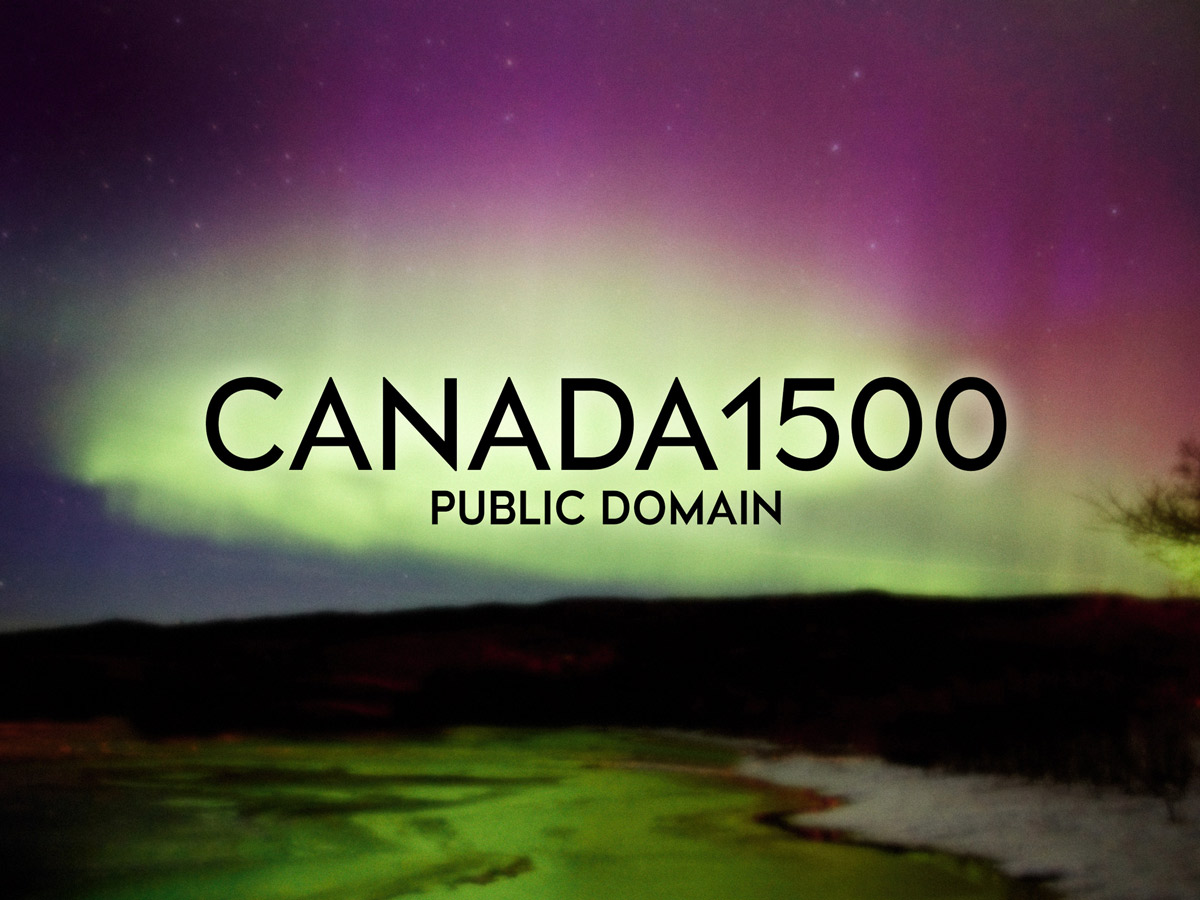
Some early Typodermic fonts range from polished to experimental to occasionally questionable. Many were eventually discontinued or removed from the main catalog and have now been released under the official CC0 1.0 Universal public-domain dedication, with no rights reserved.
1980 Portable is a public-domain typeface by Ray Larabie. The design was a condensed sans-serif with letterforms tilted at varying angles, meant to echo the visual language of the late 1970s and early 1980s. The checkerboard imagery associated with the ska band The Specials was a major influence, though the letterforms themselves came more from the narrow grotesques he had seen on 1960s lounge and jazz album covers.
Designed by Ray Larabie, 256 Bytes has been released into the public domain. The design came directly from the logo of the MITS Altair 8800, one of the first personal computers, introduced in 1975. The logo itself only provided a few letters, so most of the typeface was extrapolated from those forms.
The public-domain 6809 Chargen typeface was designed by Ray Larabie. It was a tribute to the dot matrix fonts that shaped early computing and video game aesthetics. He wasn’t copying any one source; it was a general homage to the bitmap lettering that defined that era.
Ray Larabie designed Adriator, now available as a public-domain typeface. The result was a striped display typeface with bold thick-and-thin contrasts. Looking back, it reminds him of decorative details from The Price is Right set design or old drive-in theatre snack bars.
This public-domain typeface, Airmole, was created by Ray Larabie. The name came from the kind of psychedelic juxtapositions he liked in band names such as Led Zeppelin or Soft Machine. Since moles live underground, calling one “Airmole” felt memorable and a little absurd.
Almonte, a design by Ray Larabie, is in the public domain. It was a quick, top-of-the-dome attempt at a wooden sans look, created entirely digitally without reference to actual wood type. He just imagined how it should look and built it from scratch with digital tools.
Created by Ray Larabie, Angerpoise Lampshade is a public-domain typeface. At first, he called it “Anglepoise Lampshade,” after a song by the punk band The Soft Boys. He didn’t realize Anglepoise was also a lamp brand.
Anklepants is among the public-domain typefaces designed by Ray Larabie. The design was inspired by the display typeface used by CBS radio stations owned by Westinghouse. In 1963, Westinghouse Broadcasting rebranded as “Group W,” and part of that identity was a distinctive set of call letters and logos that stayed in use until 1995.
The design of Arnprior is by Ray Larabie and is now in the public domain. The name comes from Arnprior, a town in the Ottawa Valley near where he grew up. He didn’t actually live in the town itself — he was out in the woods — but Arnprior was the nearest big place, so the name stuck.
Asterisp is a public-domain typeface by Ray Larabie. The whole idea was to focus on the asterisk, a glyph that usually gets treated as an afterthought. He wanted to give designers more options — a toolkit of asterisks in different styles so they could get more specific about the symbol instead of being stuck with whatever came bundled in their fonts.
Designed by Ray Larabie, Astron Boy has been released into the public domain. The design was inspired by the logo for Astron Belt, a vintage laserdisc video game that, for a brief moment, felt like it was pushing the limits of arcade technology. The game itself used ITC Serif Gothic for its title, but the marquee logo was custom.
The public-domain Athabasca typeface was designed by Ray Larabie. The name came from the Athabasca region in northern Canada; he wanted something that evoked ice and glaciers. His idea was to merge angular modernism with the utilitarian look of old railroad lettering, the kind where octagonal shapes were used more for ease of reproduction than for style.
Ray Larabie designed Baby Jeepers, now available as a public-domain typeface. The idea was to take the logic of a seven-segment LCD display and push it far beyond its usual simplicity. Instead of the minimal, utilitarian forms you see on digital clocks, he built an elaborate version with highly detailed, interlocking segments.
This public-domain typeface, Bailey's Car, was created by Ray Larabie. The name came directly from an incident he witnessed in Mississauga: the burning wreck of sprinter Donovan Bailey’s Mercedes. He went home and turned the event into a quick novelty font.
Baltar, a design by Ray Larabie, is in the public domain. The name was a nod to the Battlestar Galactica character, chosen at a time when the newer series had not yet aired and the reference still carried the feel of a dated, mediocre show. He wanted the typeface to be deliberately heavy and crude, something that ignored refinement in favor of blunt impact.
Created by Ray Larabie, Barbatrick is a public-domain typeface. The name came from the cartoon Barbapapa, though the typeface itself has nothing in common with that imagery. The design was essentially a derivative of Hemi Head with speed lines added.
Baveuse is among the public-domain typefaces designed by Ray Larabie. The name came from the French word for a drooling woman, chosen simply because he liked the sound of it. The design itself was a comic-style typeface, informal and bouncy, aimed at capturing the lighthearted tone common in playful display lettering.
The design of Beat my Guest is by Ray Larabie and is now in the public domain. The name came from the Adam and the Ants song of the same title, which matched the violent, chaotic tone he wanted. Unlike many of his digital experiments of the time, this typeface began with ink.
Berylium is a public-domain typeface by Ray Larabie. The design began with a scan of a metal typeface placed on the bitmap layer in Fontographer, which he then redrew with a mouse. His goal was to give the letterforms a jagged treatment, cutting deep into acute angles so they looked as if they had been trimmed with scissors.
Designed by Ray Larabie, Betsy Flanagan has been released into the public domain. It was intended as a purely utilitarian typeface, designed to resemble the look of keyboard caps found in software user manuals. Each character was based on a single image of a blank keycap, scaled to different widths.
The public-domain Biometric Joe typeface was designed by Ray Larabie. It was based on his Hemi Head typeface, which had a square, mechanical structure. He reworked it in Fontographer by manipulating the outlines of Hemi Head, adding and removing vectors and cutting polygonal chunks to simulate erosion.
Ray Larabie designed Birdland Aeroplane, now available as a public-domain typeface. He drew the letters by hand with a marker on newsprint, scanned them, autotraced the outlines, and then manually cleaned them up. The design had rough, eroded edges that gave it a distressed look.
This public-domain typeface, Biting My Nails, was created by Ray Larabie. He created it directly in Fontographer as an experiment in making a sci-fi display typeface that felt stark and unsettled. The design wasn’t fully rectilinear; he introduced diagonals at seemingly arbitrary positions to break the rhythm and make the forms look sharp, cold, and slightly illogical.
Blue Highway, a design by Ray Larabie, is in the public domain. At the time, there were no free digital versions of the FHWA Series of Standard Alphabets, commonly called Highway Gothic, so he wanted to make that style accessible. He had access to the FHWA drawings, though he didn’t trace them and largely ignored the grid in the specification.
Created by Ray Larabie, Bomr is a public-domain typeface. His intention was to design a graffiti-inspired typeface without imitating the look of spray paint or tagging. Instead, he tried to capture the spirit of graffiti through hard-edged geometry.
Borg 9 is among the public-domain typefaces designed by Ray Larabie. It was inspired directly by the Airwolf television logo, which itself shared a lineage with Blue Thunder, another 1980s helicopter drama. The design was a wide, industrial style with unnecessary gaps cut into the strokes.
The design of Boron is by Ray Larabie and is now in the public domain. The design drew loosely from 1960s techno typefaces and MICR-inspired lettering, but he added layers of complexity by introducing extra counters and circuit-like details. Above each character he drew vector lines that mimicked circuit board traces, connecting the letters as if they were components in an imagined electronic device.
Braeside is a public-domain typeface by Ray Larabie. The typeface was named after a former township in the Ottawa Valley where he had worked one summer at a lumber mill. It was meant as a personal tribute, but the design itself followed the logic of industrial stencil lettering rather than referencing anything he had seen on site.
Designed by Ray Larabie, Bramalea Beauty has been released into the public domain. It was a distressed grunge typeface created quickly by taking his Primer Regular font, running it through Photoshop with Alien Skin filters, and then autotracing the output. He didn’t add new shapes beyond what was already in Primer Regular; it was essentially a roughened version of an existing design, meant to look unattractive and uneasy.
The public-domain Burnstown Dam typeface was designed by Ray Larabie. It was his take on the barnboard genre of novelty typefaces, but he exaggerated the concept so the planks bent in impossible ways, as if they were made of rubber. The letterforms were hand-drawn in Fontographer, including whimsical details such as punctuation that looked like nails, an asterisk shaped like a sheriff’s badge, and an at sign reimagined as a cowboy hat.
Ray Larabie designed Butterbelly, now available as a public-domain typeface. It emerged during a period when experimental modular fonts were popular. The inspiration came from Designer Republic’s work on the PlayStation game Wipeout, where they created letterforms by cutting apart a Microgramma numeral 8.
This public-domain typeface, Buxotic, was created by Ray Larabie. It was an experimental typeface where he pushed letterforms into strange, elaborate shapes that avoided conventional typographic norms. The design combined voluptuous curves with pointed, spiked features, creating a hybrid that was intentionally difficult to categorize.
Capacitor, a design by Ray Larabie, is in the public domain. It began as a kind of experiment in segmented LCD typography. The name refers to the capacitive structure of an LCD segment: two transparent electrodes separated by a thin layer of liquid crystal that acts as a dielectric.
Created by Ray Larabie, Charles in Charge is a public-domain typeface. It was part of the modular techno style that was popular at the time. He built it in Fontographer, following a simple rule set rather than a detailed design plan.
Color Basic is among the public-domain typefaces designed by Ray Larabie. It was a direct homage to the TRS-80 Color Computer (CoCo), the machine that first introduced him to programming and, eventually, to type design. His family got a CoCo in 1983, and he spent countless hours with it in his room, typing in BASIC games from magazines like Rainbow and Hot CoCo.
The design of Colourbars is by Ray Larabie and is now in the public domain. He built Colourbars in FontLab. He first drew the components in an upright position so he could more easily measure stem widths and establish spacing.
Contour Generator is a public-domain typeface by Ray Larabie. The design was inspired by the stark geometry of the 1968 RCA logo. He didn’t attempt a strict recreation but used its three letters as a starting point for an entire alphabet.
Designed by Ray Larabie, Counterscraps has been released into the public domain. It was a dingbat font made entirely of pictorial glyphs, not letters or numbers. The idea came from experimenting with his Palm Pilot 1000, one of the grayscale PDAs of the late 1990s.
The public-domain Crackman typeface was designed by Ray Larabie. The design drew directly from the Pac-Man arcade marquee hanging in his workspace. He also owned a Ms. Pac-Man marquee, making it almost inevitable that the lettering style would find its way into one of his fonts.
Ray Larabie designed Cranberry Gin, now available as a public-domain typeface. The name came from a cocktail he was drinking a lot at the time, though it had no connection to the design itself. He was exploring octagonal, techno-inspired letterforms that resembled 1980s pen plotter typography, but with a slight science fiction edge.
This public-domain typeface, Credit, was created by Ray Larabie. Credit River was a modular serif design with the kind of deconstructive quirks that were common in the 1990s, such as a backward A and an unconventional lowercase g. Credit Valley kept those quirks but softened some of the more exaggerated traits, giving it a slightly more usable feel.
Cretino, a design by Ray Larabie, is in the public domain. It began as a joke while he was experimenting with a new Wacom Graphire drawing tablet. He sketched clumsy calligraphy in his font editor, then exaggerated it by adding short, misplaced strokes and scribbles over the capitals as a kind of parody of fanciness.
Created by Ray Larabie, Crystal Radio Kit is a public-domain typeface. It was his tribute to Radio Shack, a brand that played a big role in his childhood. He grew up with their stores and catalogs, and the Radio Shack logo from the 1970s through the early 1990s left a strong impression on him.
Cuomotype is among the public-domain typefaces designed by Ray Larabie. Cuomotype began as a distressed variant of Larabiefont after Mr. Cuomo suggested a rougher version. Its typewriter-like foundation came from the Olympia Senatorial No. 71, with digital wear added to produce an aged-document effect.
The design of Cyclopentane is by Ray Larabie and is now in the public domain. The design was inspired by the logo on the backglass of Bally’s 1980 pinball machine Xenon. That game was memorable to him as the first talking pinball table by Bally and the first to feature a female voice, but what stuck with him most was the artwork.
Dacquoise is a public-domain typeface by Ray Larabie. The idea began when he spotted an old patisserie awning in Nagoya. The sign had a stylized Art Deco look that stayed with him, and he used it as the starting point for the design.
Designed by Ray Larabie, Dazzle Ships has been released into the public domain. As an experiment in modular design. It was a single all-caps cut, based on the look of segmented LCD displays but taken to an impractical extreme.
The public-domain Deftone Stylus typeface was designed by Ray Larabie. It began as a single-style constructed script. The design was influenced by vintage auto garage signs and mid-20th-century American automotive logos, with the Raybestos logo serving as a starting point.
Ray Larabie designed Degrassi, now available as a public-domain typeface. It began as a graffiti-inspired display typeface. The name came from a coworker’s anecdote about meeting actors from the Degrassi television series on a Greyhound bus, though the font has no connection to the shows themselves.
This public-domain typeface, Delta Hey Max Nine, was created by Ray Larabie. It began as a single-style cartoon display typeface. Instead of using a drawing tablet, he constructed the letters with a mouse, which gave the design a rough, clunky quality.
Deluxe Ducks, a design by Ray Larabie, is in the public domain. It began as a quick modification of his earlier typeface Pricedown. It was a single-style twin-line display font, created without much planning or ambition.
Created by Ray Larabie, Dendritic Voltage is a public-domain typeface. The idea began when he saw a photo of the Laox shop sign in Akihabara, Japan. The design was a bold techno display face, created to capture a futuristic look with direct reference to that sign.
Deportees is among the public-domain typefaces designed by Ray Larabie. It began as a horror display font. The name came from Billy Bragg’s cover of a Woody Guthrie song, though the design itself was not connected to the music.
The design of Die Nasty is by Ray Larabie and is now in the public domain. It began as a free headline typeface influenced by the Kiss logo and glam rock lettering. The name was a play on their 1979 album Dynasty.
Dignity of Labour is a public-domain typeface by Ray Larabie. It began as a single-style techno display typeface. It was influenced by MICR-inspired fonts of the 1960s, such as Data ’70 and Westminster, but he pushed those ideas in a more exaggerated and decorative direction.
Designed by Ray Larabie, Dream Orphans has been released into the public domain. It was his first attempt at a humanist sans-serif. The name came from a Ron Sexsmith lyric that caught his ear; he liked its evocative tone even if he didn’t fully understand it.
The public-domain Droid 1997 typeface was designed by Ray Larabie. The idea began when he spotted a narrow unicase lettering style on a clothing store sign while riding a streetcar along Queen Street East in Toronto. The concept stuck with him, and he turned it into a unicase typeface where each letterform blends uppercase and lowercase characteristics.
Ray Larabie designed Dyspepsia, now available as a public-domain typeface. It was essentially a quick remix of Deftone Stylus, one of his earlier script designs. Where Deftone Stylus leaned back with a slanted rhythm, Dyspepsia was drawn upright and more condensed.
This public-domain typeface, Echelon, was created by Ray Larabie. It grew out of his experiments with drawing vectors on a Palm Pilot PDA. The vector grid on the device was coarse, which meant both node placement and Bezier handles were limited to fixed positions.
Eden Mills, a design by Ray Larabie, is in the public domain. It was his attempt at a postmodern geometric style that had been popular earlier in the decade, particularly through the Emigre catalog. By the time he finished it, the style already felt like it was fading, and his own version lacked the refinement of the stronger designs from that movement.
Created by Ray Larabie, Edgewater is a public-domain typeface. The design began with a scan of Microgramma from an old font catalog, a typeface he has long admired for its cold, sci-fi tone. He traced over this base to create a stencil effect, adding reverse spike forms and angular cuts to the strokes.
Edmunds is among the public-domain typefaces designed by Ray Larabie. It was a display typeface with a deliberately silly, cartoonish character. Structurally it was a slab serif, but he distorted the letterforms to the point of absurdity.
The design of Effloresce is by Ray Larabie and is now in the public domain. It appeared the same day as Dream Orphans. While Dream Orphans was a sans-serif, Effloresce carried the same underlying shapes but with serifs added.
Electorate Boogaloo 3 is a public-domain typeface by Ray Larabie. It was part of a series of art nouveau-inspired typefaces. This was the only design from that series that he retained.
Designed by Ray Larabie, Electroharmonix has been released into the public domain. It was a pseudo-Japanese display typeface that borrowed the look of katakana, hiragana, and kanji characters without forming legible Japanese words. For example, the W was shaped to resemble the kanji for “yama,” meaning “mountain.” At the time, he named it after the guitar effects company Electro-Harmonix, mistakenly believing the company was defunct.
The public-domain Engebrechtre typeface was designed by Ray Larabie. It was his attempt at a flat-sided Art Deco typeface with a semi-industrial character. The design combined thick and thin strokes in the manner of Broadway, but with narrower proportions, squared sides, and a less decorative, more austere feel.
Ray Larabie designed Ennobled Pet, now available as a public-domain typeface. It was a novelty typeface made up of paw prints with letters inside them, designed with his mother in mind. She had become interested in computers in the 1990s and enjoyed working with Corel Draw, but none of his techno or heavy metal–inspired fonts suited her needs.
This public-domain typeface, Euphorigenic, was created by Ray Larabie. It was created under unusual conditions: he designed it entirely on a Palm Pilot during his bus and train commutes. The software wasn’t meant for font creation, so he could only view one glyph at a time on a small, low-resolution screen.
Fabian, a design by Ray Larabie, is in the public domain. It was a constructed script typeface intended to convey a 1950s technological style. The name was taken from the singer Fabian.
Created by Ray Larabie, Fadgod is a public-domain typeface. It was an experiment in pushing geometric Art Deco design toward extremes by relying almost entirely on triangular forms. He used a single master triangle, copying and scaling it to keep the angles consistent across the alphabet.
Failed Attempt is among the public-domain typefaces designed by Ray Larabie. It was a pixel-based typeface that incorporated intentional gaps between the squares. The name reflected his sense that the design did not fully meet the goals he had in mind.
The design of Fake Receipt is by Ray Larabie and is now in the public domain. His goal was to capture the low-resolution look of late-20th-century cash register receipts. He built it on a rough, slightly misaligned grid using overlapping ellipses.
Filepile is a public-domain typeface by Ray Larabie. It was a pixel-based font with a drop shadow, created for the online community File Pile. File Pile was an early internet forum where members shared media in themed groups called “piles.” The design was loosely based on the forum’s logo.
Designed by Ray Larabie, First Blind 2 has been released into the public domain. It was intended as a follow-up to an earlier design and consisted of an all-caps alphabet with irregular construction. Some letters included small wing-like extensions, and the overall forms were unevenly developed.
The public-domain Fluoride Beings typeface was designed by Ray Larabie. It was essentially an experiment with perspective effects applied to his Fragile Bombers font. The typeface features an angular design where the tops of the letters look big and wide, while the bottoms appear small and narrow.
Ray Larabie designed Foo, now available as a public-domain typeface. The design began after someone on a Usenet group asked him to make something like the lettering on a Rolling Stone cover for the Foo Fighters. He didn’t know at the time that the source was Showcard Gothic, a fairly new design by Jim Parkinson.
This public-domain typeface, Fragile Bombers, was created by Ray Larabie. It began as a single regular style. The design was narrow, built from straight lines with chamfered corners, and intended to suggest a militaristic mood.
Frak, a design by Ray Larabie, is in the public domain. It was one of his earliest attempts at type design. The name came from the invented swear word in the original Battlestar Galactica series.
Created by Ray Larabie, Frozdotre is a public-domain typeface. The design came out of his fascination with The Designers Republic and their work on the PlayStation game Wipeout from 1995. The manual for that game struck him as a vision of the future, and he wanted to capture some of that spirit.
Gargle is among the public-domain typefaces designed by Ray Larabie. It began as a hand-drawn comic dialog typeface. The goal was to make something in the spirit of newspaper strips, especially Calvin and Hobbes.
The design of Ghostmeat is by Ray Larabie and is now in the public domain. It was a wide cartoon bubble typeface designed with a playful but slightly eerie style. He added separate front and back layers so that designers could apply color effects.
Giant Tigers is a public-domain typeface by Ray Larabie. The design began with a scan of Alternate Gothic from a metal type catalog. He applied blur and stripe effects in Photoshop and Alien Skin software, producing a textured, striped appearance.
Designed by Ray Larabie, Glazkrak has been released into the public domain. It was one of his earliest typefaces, built on a blocky alphabet likely influenced by Eurostile. To create the broken glass texture, he drew numerous polygons by hand rather than relying on filters.
The public-domain Golden Girdle typeface was designed by Ray Larabie. The design emerged while he was working on the real-time strategy game Dark Colony at Take2 Games. The project required him to design interface screens filled with futuristic, techno-styled elements.
Ray Larabie designed Goldsaber, now available as a public-domain typeface. It began as a single all-caps style. His aim was to create a display typeface that drew on Art Deco forms, emphasizing sharp angles and sweeping curves in a geometric framework.
This public-domain typeface, Goodfish, was created by Ray Larabie. The design was rooted in sign painting methods: he began with a skeleton, applied angled strokes, and finished the characters with triangular Latin serifs. The result was a geometric slab serif with sharp detailing and a slightly improvised quality.
Got No Heart, a design by Ray Larabie, is in the public domain. It was intended to capture the look of mid-century atomic age design. The letterforms drew on the kidney-shaped motifs of 1950s furniture and the streamlined curves of that period.
Created by Ray Larabie, Graffiti Treat is a public-domain typeface. It began as a single-style display typeface. The design was based on graffiti he noticed under a bridge in Mississauga.
Green Fuz is among the public-domain typefaces designed by Ray Larabie. The design was influenced by vintage horror comics and by the logo of the band The Cramps. It featured dripping letterforms intended to evoke the style of classic B-movie horror graphics.
The design of Groovy Ghosties is by Ray Larabie and is now in the public domain. The design was based on cartoon ghost shapes and was intended as a playful display typeface. The name was a reference to the pop punk band The Groovie Ghoulies.
Guanine is a public-domain typeface by Ray Larabie. The design was influenced by lettering seen on vintage buses, possibly from the 1930s. It featured coarse, industrial letterforms with art deco traits.
Designed by Ray Larabie, Gumtuckey has been released into the public domain. The design was based on his Vibrocentric typeface, modified by adding boot tread shapes to the letterforms to create a footwear-inspired effect. The name came from an Ottawa Valley expression for rubber boots.
The public-domain Hamma Mamma Jamma typeface was designed by Ray Larabie. The design was influenced by 1970s display lettering styles, particularly those associated with van culture graphics. It was developed as a condensed, upright variation of his Husky Stash typeface, released the same day.
Ray Larabie designed Hawkeye, now available as a public-domain typeface. The typeface was inspired by large-scale graffiti he had seen in Toronto. The design used a modular construction and included separate front and back layers to allow for coloring effects.
This public-domain typeface, Heart Sweet Heart, was created by Ray Larabie. The design was inspired by cross-stitch lettering found in traditional samplers. In 2004, he added a variant called Heart Sweet Heart, which incorporated heart motifs.
Hello Larry, a design by Ray Larabie, is in the public domain. The design was influenced by the Y2K-era aesthetic and developed without a direct reference point. It combined graffiti-inspired forms with a counterless structure and included decorative “eye” shapes within some letters.
Created by Ray Larabie, Highway to Heck is a public-domain typeface. The design was derived from his Blue Highway typeface. He applied an asphalt texture in Photoshop and then auto-traced it to create a crackled effect.
Holy Smokes is among the public-domain typefaces designed by Ray Larabie. The design was created in Illustrator using a custom brush tool and a tablet, resulting in letterforms shaped like curved cigarettes. It was intended as an experimental display typeface.
The design of Hooked Up 101 is by Ray Larabie and is now in the public domain. The design featured sharp, rectangular corners and a forward slant. The inspiration behind the typeface and the meaning of its name are unclear to him now.
Horsepower is a public-domain typeface by Ray Larabie. It began as a display typeface. It was a variation of his earlier Induction design, both of which drew from Wim Crouwel’s 1967 New Alphabet.
Designed by Ray Larabie, Hurontario has been released into the public domain. The design was an experiment in creating a connected, constructed script style. He named it after a street near his home in Mississauga.
The public-domain Hurry Up typeface was designed by Ray Larabie. It began as a display typeface. The idea came from Ed Emberley’s 1977 book Great Thumbprint Drawing Book.
Ray Larabie designed Husky Stash, now available as a public-domain typeface. It began as a display typeface. He wanted to capture the visual language of 1970s van culture graphics, so he experimented with modular construction and oversized swashes.
This public-domain typeface, Huxtable, was created by Ray Larabie. He aimed to create a casual slab serif with a hand-drawn quality. The design was based on the forms of an IBM Selectric typewriter font, possibly Prestige Elite.
Hydrogen Whiskey, a design by Ray Larabie, is in the public domain. It began as a free display typeface. The design was built around wide, capsule-shaped letterforms that echoed the aesthetics of 1960s science fiction.
Created by Ray Larabie, Icicle Country 2 is a public-domain typeface. It began as a free display typeface. It was an experiment in giving Impact a winter theme.
Induction is among the public-domain typefaces designed by Ray Larabie. It began as a free display typeface. The design was influenced by the cover lettering of New Order’s 1988 compilation Substance.
The design of Inflammable Age is by Ray Larabie and is now in the public domain. It began as a free display typeface. The design was built around octagonal corners, giving it a more aggressive look than his earlier Droid, though in practice the two ended up looking very similar.
Injekuta is a public-domain typeface by Ray Larabie. It began as a paid display typeface. The design was influenced by the sleek look of automobile badge lettering, with compressed proportions and sharp curves meant to echo the way car emblems were styled in metal.
Designed by Ray Larabie, Instant Tunes has been released into the public domain. The design was influenced by Edwardian book cover lettering, with added abstract elements that gave it a less traditional appearance. The name came from the XTC song “Instant Tunes,” chosen for its sound rather than any direct connection to the design.
The public-domain Interplanetary Crap typeface was designed by Ray Larabie. The design began with a scan of Alternate Gothic No. 3 from a catalog, which he modified by stretching and adding stencil struts in Photoshop.
Ray Larabie designed Iomanoid, now available as a public-domain typeface. It began as a free display typeface. The design was based directly on the logo for Taito’s 1986 arcade game Arkanoid.
This public-domain typeface, Jandles, was created by Ray Larabie. An unpublished 2001 version preceded the public release. Larabie considered that first attempt too crude and refined the design for its eventual debut.
Jigsaw Trouserdrop, a design by Ray Larabie, is in the public domain. The design was derived from his Blue Highway typeface. A friend suggested he create a jigsaw puzzle font, which led him to experiment with adding puzzle-like forms to the letters.
Created by Ray Larabie, Jingopop is a public-domain typeface. The design began as an attempt to adapt the Coca-Cola logo into a typeface, but he abandoned that direction when it proved impractical. Instead, he reworked the partial drafts into a jumbled, experimental design that became Jingopop.
Johnny Fever is among the public-domain typefaces designed by Ray Larabie. It was an all-caps design influenced by 1980s science fiction and computer graphics. The original version included long swashes in the uppercase slots, which, along with spacing problems, made it difficult to use.
The design of Karma is by Ray Larabie and is now in the public domain. It began as a free typeface. His aim was to capture the feel of bitmap fonts from the Windows console, the kind you could generate by adjusting system settings in the 1990s.
Kicking Limos is a public-domain typeface by Ray Larabie. The design was constructed from repeated loop shapes that he arranged and combined to form letterforms, giving it a modular structure. The name was chosen for its strong, stylized sound rather than for a direct connection to the design.
Designed by Ray Larabie, Kilsonburg has been released into the public domain. It began as a free typeface. The design was inspired by the December 1925 cover of Vogue, which featured a striking approach to thick and thin strokes.
The public-domain King Richard typeface was designed by Ray Larabie. It began as a free typeface. The design was based on the Plymouth logo that appeared on cars from 1964 to 1994, which featured subtly flared strokes and squared terminals that suggested strength and speed.
Ray Larabie designed Kingsbridge, now available as a public-domain typeface. It began as a free slab-serif family. The design was built around square slabs and sharp points, aiming for a bold, assertive look.
This public-domain typeface, Knuckle Down, was created by Ray Larabie. It began as a free font. It was originally an all-lowercase design with the capital positions cut out on the right side, so round letters would overlap when typed in sequence.
Krait, a design by Ray Larabie, is in the public domain. His goal was to create a contemporary display typeface that combined Art Deco influences with modern geometric principles. The design worked as a layered system, with a solid layer, an outline layer, and a fill layer that could be combined for offset effects.
Created by Ray Larabie, Kredit is a public-domain typeface. It began as a free font. The design was intended to emulate the embossed numerals commonly seen on credit cards.
Kwokwi is among the public-domain typefaces designed by Ray Larabie. The design began with Mikadan, a typeface he developed for Bioware’s Dragon Age series. That commission required a pre-hinted font aligned to a low-resolution pixel grid so it would perform reliably in the game engine.
The design of Lady Starlight is by Ray Larabie and is now in the public domain. It began as a single-style display font. The design was directly inspired by the Scorpions’ band insignia, which he later learned had also been used in the Rollerball movie poster from 1975.
Lesser Concern is a public-domain typeface by Ray Larabie. The design was developed by taking the outline strokes of his typeface Kleptocracy and applying a nib stroke effect to them. The result was a vertical, disconnected script with angled stroke modulation.
Designed by Ray Larabie, Let's Eat has been released into the public domain. The design was created by modifying his Fragile Bombers typeface. He applied Photoshop’s emboss effect to simulate reflections, then added additional highlights by hand with a tablet.
The public-domain Letter Set typeface was designed by Ray Larabie. The design was based on a set of ceramic letters he found at a garage sale in Mississauga, originally used by amateur filmmakers in the 1960s for titles and credits. He scanned the letters on a flatbed scanner, applied digital effects, and autotraced the results.
Ray Larabie designed Lewinsky, now available as a public-domain typeface. It was an all-lowercase techno-style typeface influenced by the snowboard aesthetic of the late 1990s. The design included horizontal lines running through the middle of the letters, though the spacing and alignment presented difficulties.
This public-domain typeface, Liliput Steps, was created by Ray Larabie. This pixel typeface drew inspiration from EarthBound, known in Japan as Mother 2, and took its name from the game's second sanctuary near Happy Happy Village. It was one of two EarthBound-related fonts Larabie created, alongside Orange Kid.
Living by Numbers, a design by Ray Larabie, is in the public domain. The design was not based on a specific typeface but on the idea of creating a jagged, irregular style. The letterforms were spiky and uneven, with nervous, jittery outlines that gave the typeface an energetic quality.
Created by Ray Larabie, Lockergnome is a public-domain typeface. The typeface began as a response to a request from Chris Pirillo, founder of LockerGnome, Inc. and host of TechTV’s Call for Help.
Lucky Ape is among the public-domain typefaces designed by Ray Larabie. The typeface was inspired by his experience working at a lottery booth in Oakville, Ontario. He wanted to create a design that resembled the rollers on a slot machine.
The design of Lunasol is by Ray Larabie and is now in the public domain. The design was influenced by the twin-striped lettering on Toronto Blue Jays jerseys. He developed a futuristic, square-form typeface with parallel stripes running through the letters.
Mai Tai is a public-domain typeface by Ray Larabie. The typeface was created as a bitmap design that he later autotraced into vector form. The result featured compact, boxy letterforms and a very small x-height.
Designed by Ray Larabie, Mail Ray Stuff has been released into the public domain. The design was influenced by the visual style of 1980s Menudo record covers. He aimed to create a typeface with organic letterforms that suggested a casual, playful quality.
The public-domain Malache Crunch typeface was designed by Ray Larabie. The design was based on his Budmo typeface; he isolated its dot pattern and applied a heavy outline effect, producing letters made up of small rings. The appearance suggested chains or hole-punch reinforcement rings.
Ray Larabie designed Manbow, now available as a public-domain typeface. It began with a sketch of a ‘B’ featuring a decorative loop, which reminded him of clever loop treatments he had seen in thin strokes of Art Deco typefaces. That small detail set the direction, and he developed the rest of the alphabet into a geometric display face with strong Art Deco influences.
This public-domain typeface, Mango, was created by Ray Larabie. Unlike many of his earlier typefaces, it was originally sold rather than distributed freely, apart from a limited free release of the Mango Scribble layer. He developed the design by drawing letters freehand with a Sharpie in an upside-down orientation, which created irregular, awkward forms.
Map of You, a design by Ray Larabie, is in the public domain. The typeface began from a concept drawing created for an online multiplayer clan logo. The idea suggested a sci-fi tribal style, but it provided only a few characters, so he expanded the design into a complete alphabet.
Created by Ray Larabie, Marquee Moon is a public-domain typeface. The design began with an experimental concept for the letter N and developed into a typeface influenced by Compacta. Its main features were condensed proportions and twin stripes running through the letters.
Massive Retaliation is among the public-domain typefaces designed by Ray Larabie. The design combined elements of Art Nouveau with angular forms associated with techno typography. It was intended as a display typeface that reflected stylistic trends of the late 1990s.
The design of Mesmerize is by Ray Larabie and is now in the public domain. It was his second attempt at using interpolation properly, after an earlier trial with Kingsbridge. Until then, he had been working out weight blending manually with charts and calculations.
Metal Lord is a public-domain typeface by Ray Larabie. The design was based directly on the Iron Maiden logo, which itself came from an earlier typeface he had not identified at the time. His first version contained only the letters visible in the logo, but as more information surfaced—through fan discoveries and archival materials—he expanded and modified the font to include a full character set.
Designed by Ray Larabie, Minisystem has been released into the public domain. It was based directly on the segmented fluorescent displays used in a Technics audio minisystem he owned in the 1990s. That display style was not unique to Technics; similar versions appeared across many brands of consumer electronics at the time.
The public-domain Minya typeface was designed by Ray Larabie. It grew out of a marker scrawl he had used for years on family greeting cards and gift labels. The process was deliberately raw—he drew the letters by hand, scanned them on a flatbed scanner, and then autotraced them without much cleanup.
Ray Larabie designed Minya Nouvelle, now available as a public-domain typeface. It began as a reworking of his earlier Minya typeface. While Minya had been created quickly from marker drawings and scans, he wanted this version to have a more consistent stroke logic and a cleaner, digital foundation.
This public-domain typeface, Misirlou, was created by Ray Larabie. The design was influenced by Mike Daines’ 1971 Letraset typefaces Sunshine and Moonshine. Sunshine featured hollow letters with a light halftone drop shadow, while Moonshine reversed the approach with solid letters and hollow shadows.
Mississauga, a design by Ray Larabie, is in the public domain. The design was derived from his Credit typeface, which he modified to create a more experimental style. He named it after Mississauga, the city where he was living at the time.
Created by Ray Larabie, Mister Firley is a public-domain typeface. The design combined several influences: the unicase style associated with 1970s lettering, exaggerated stroke contrasts reminiscent of psychedelic forms, and soft-edged square shapes common in 1990s techno typography. The result was a display typeface that reflected the design trends of its time.
Mlurmlry is among the public-domain typefaces designed by Ray Larabie. The design began as a modification of Neuropol; he condensed the forms and retraced them by hand, producing irregular outlines. The result was an experimental display typeface with a distorted appearance.
The design of Mob Concrete is by Ray Larabie and is now in the public domain. The design was derived from Vibrocentric, which itself was an expanded version of Hemi Head. Mob Concrete exaggerated those heavy forms further, producing a rough, blocky style.
Model Worker is a public-domain typeface by Ray Larabie. He created the design using a damaged Speedball dip pen nib that he altered with pliers. Writing with it on ordinary printer paper produced rough, irregular strokes as the nib tore the paper fibers and the ink soaked unevenly.
Designed by Ray Larabie, Moja has been released into the public domain. Unlike most of his earlier typefaces, it was originally sold rather than distributed freely. He developed it by adapting his Meloche design and applying a fur-like texture effect.
The public-domain Mold Papa typeface was designed by Ray Larabie. The typeface was derived from Soul Mama, a sans serif design with outlines and drop shadows, and its simplified companion Soul Papa. Mold Papa was a distorted variant of Soul Papa, created as a separate experiment in form.
Ray Larabie designed Motorcade, now available as a public-domain typeface. The design began as an adaptation of his Inflammable Age typeface, which he reworked in Lightwave 3D to create a blocky, three-dimensional style. The result resembled lettering from 1960s racing graphics, with a strong high-contrast 3D effect.
This public-domain typeface, Naftalene, was created by Ray Larabie. The design was based on a piece of lettering found on an onion box; a font enthusiast sent him an image, and he adapted the angular style into a digital typeface. He saw it as a translation of architectural brutalism into typographic form.
Nasal, a design by Ray Larabie, is in the public domain. It was derived from Nasalization, with a blur effect applied to create softened outlines. Nasal was released a few weeks after Nasalization.
Created by Ray Larabie, Neurochrome is a public-domain typeface. The concept was simple: he took Neuropol and rendered it in Lightwave, a 3D modeling program, applying extrusion, beveling, and reflections to make it look like chrome. The result was a spectacle more than a practical tool, and he never expected it to find much use.
Neuropol is among the public-domain typefaces designed by Ray Larabie. The design was influenced by Brendel Type Studio’s Digital Sans from 1974, which he had admired since childhood without knowing its name. He didn’t attempt a direct revival; instead, he added his own twist.
The design of New Brilliant is by Ray Larabie and is now in the public domain. It emerged during a period when he was producing a number of techno-style typefaces. Its design is very wide, with geometric construction and deliberate gaps in the strokes, similar to the fragmented look seen in science fiction graphics such as the Blade Runner logo.
Night Court is a public-domain typeface by Ray Larabie. The design featured a recurring ornamental form that first appeared on the N and was then applied across other letters. The result was an experimental display typeface with highly unusual shapes.
Designed by Ray Larabie, Nightporter has been released into the public domain. The design was created by taking Fragile Bombers and applying a ripple effect in Photoshop, which produced a distorted texture across the letterforms.
The public-domain NK57 typeface was designed by Ray Larabie. His goal was to make a programmer-friendly typeface with multiple widths, something that would let coders fit a precise number of characters on different display panels. The family launched with sixty styles in total: six weights, five widths, and italics.
Ray Larabie designed No Clocks, now available as a public-domain typeface. The typeface originated in 1997 when he created a design for Real Doll, a company developing a proposed line of robot and cyborg dolls under the name Replicants. They requested a wide, futuristic style similar to China/Chimes, a 1970s typeface that later influenced his Korataki design.
This public-domain typeface, Numberpile, was created by Ray Larabie. It began as a simple tool for adding circled numerals to maps and diagrams. The first version included 80 circled numbers and was distributed with a free commercial-use desktop license.
Octoville, a design by Ray Larabie, is in the public domain. The design was influenced by the title font from the sci-fi film “Outland”, though he aimed to make it distinct. It became a compact, octagonal typeface with a low x-height in its lowercase letters.
Created by Ray Larabie, Oil Crisis is a public-domain typeface. The typeface originated from a collection of Consumer Reports magazines from the 1970s and early 1980s that he found while helping his aunt clean out her mother’s basement. Each issue contained diagrams of cars such as the Dodge Omni and Chevrolet LUV.
Olivers Barney is among the public-domain typefaces designed by Ray Larabie. The design was inspired by lettering he noticed on the facade of an old department store in England during his first visit there. The letters appeared to date from the 1940s; they were blocky, plain, and geometric, a style often called stovepipe lettering because the shapes resemble bent pieces of stovepipe with straight lines and rounded corners.
The design of Operational Amplifier is by Ray Larabie and is now in the public domain. It was a boxy, techno design that leaned heavily toward slanted and extended forms, which limited its usability. In the 2010s, he revised the typeface, reducing the slant and adjusting proportions to make it more functional.
Orange Kid is a public-domain typeface by Ray Larabie. It was a strict replica of the main font used in the Super Nintendo game Earthbound. At the time, he hadn’t actually played the game himself; a fan sent him screenshots, and those provided everything he needed to reproduce the pixel font.
Designed by Ray Larabie, Outright has been released into the public domain. He first called it Outright Televism. The design was a 1990s techno interpretation of an art nouveau style; it had blocky shapes, irregular counters, and flared elements.
The public-domain Overload typeface was designed by Ray Larabie. The design was based on Eurostile, also known as Microgramma; he kept its modular structure but altered it with distressed forms that resembled degraded video output. He also added alternate A and E characters, which made a unicase effect possible.
Ray Larabie designed Paint Boy, now available as a public-domain typeface. The typeface was created through experimentation with a new feature in Adobe Illustrator that allowed objects to be turned into brushes. He drew a paintbrush, converted it into a brush, and used it to form the letter shapes.
This public-domain typeface, Pants Patrol, was created by Ray Larabie. It was conceived as a derivative of his earlier typeface 20th Century Font, which was later rebuilt and relaunched as Wevli after a trademark issue prevented continued use of the original name. Pants Patrol was essentially a heavier version of that design, with a striped texture applied to give the effect of woodcut or woodgrain surfaces.
Paraaminobenzoic, a design by Ray Larabie, is in the public domain. It was one of his earliest experiments with science fiction display type. He built it using a process he was relying on a lot at the time: drawing glyphs as bitmaps, blurring them in Photoshop to create smoother edges, and then auto-tracing the results.
Created by Ray Larabie, Peatloaf is a public-domain typeface. It was based on his earlier design Yawnovision, with the grunge treatment obscuring many of the structural weaknesses of the original. The texture gave the letterforms a rough character that suggested both medieval and otherworldly qualities.
Plain Cred 1978 is among the public-domain typefaces designed by Ray Larabie. The design was a geometric sans serif derived from his earlier typeface Street Cred. It was influenced by 1970s hand-lettered layouts and shared traits with Herb Lubalin’s Avant Garde Gothic, particularly the slanted A, M, V, and W characters that suggested custom lettering.
The design of Planet Benson is by Ray Larabie and is now in the public domain. The design was based on graffiti styles he observed around the Greater Toronto Area, ranging from elaborate work in Toronto’s Parkdale neighborhood to crude lettering in suburban towns. Planet Benson drew more from the latter, intentionally embracing an unpolished, awkward quality.
Plasmatic is a public-domain typeface by Ray Larabie. The design began with OCR-A as a reference point, but he pushed it toward a distorted, psychedelic style. He wanted a typeface that looked mechanical but warped, almost as if it had passed through an unstable digital filter.
Designed by Ray Larabie, Plastic Bag has been released into the public domain. It was his attempt to build a typeface from hexagonal units rather than the rectangular grids usually used for segmented display fonts. The structure was influenced by LCD segmented lettering, but he wanted the modular geometry to feel unusual and rigid, almost uncomfortable to read.
The public-domain Po Beef typeface was designed by Ray Larabie. The idea was to make a heavy sans serif that exaggerated weight and proportion to the point of awkwardness. The letterforms were blocky and compressed, leaving little room for subtlety or refinement.
Ray Larabie designed Poke, now available as a public-domain typeface. The design began with a squarish slab serif structure, which he combined with decorative striped forms reminiscent of hot-rod graphics. The result was a display typeface with unconventional contrasts between rigid letterforms and ornamental detailing.
This public-domain typeface, Pop Up Fontio, was created by Ray Larabie. The typeface was built from his earlier design Lockergnome, which he modified by removing curves to create polygonal letterforms. He then imported the shapes into Lightwave, a 3D modeling application, where he extruded each letter and placed it above a modeled jack-in-the-box form.
Port Credit, a design by Ray Larabie, is in the public domain. The typeface was an attempt to create a humanist sans serif loosely modeled after Optima. The design incorporated curling details that gave it an ornamental quality, though the result lacked the balance and refinement of its inspiration.
Created by Ray Larabie, President Gas is a public-domain typeface. The idea came from a logo on a can of house paint; just a few letters, but enough to spark the thought of building a complete alphabet. He drew it with geometric proportions and octagonal shapes, keeping the design square and angular for display use.
Pretender is among the public-domain typefaces designed by Ray Larabie. The idea came directly from the lettering on a 1935 sheet music cover for the waltz ballad “Mexicali Rose.” he took the forms of the words on that cover and expanded them into a complete typeface. The E in the source looked more like a lunate E—a C with a crossbar—while the L had a hooked form, almost like a reversed J.
The design of Prime Minister of Canada is by Ray Larabie and is now in the public domain. The design was influenced by Ed Emberley’s Great Thumbprint Drawing Book from 1977. His simple, approachable drawing style suggested a hand-lettered cartoon typeface, which he developed with irregular, humorous forms to echo that spirit.
Primer Apples is a public-domain typeface by Ray Larabie. It was created with teachers in mind. It was originally called Primer Print, after the oversized pencils used in early schooling.
Designed by Ray Larabie, Primer Print has been released into the public domain. It was created with teachers in mind. It was originally called Primer Print, after the oversized pencils used in early schooling.
The public-domain Propaniac typeface was designed by Ray Larabie. The design was inspired by the sleeve for the Pointer Sisters’ 1984 single “Neutron Dance,” created by Shoot That Tiger Creative Services in London. He didn’t trace the lettering but based his work on the same Memphis-style geometric forms that gave the original its look.
Ray Larabie designed Pulse State, now available as a public-domain typeface. The typeface was conceived as a horror display design. He drew the letterforms by hand on paper, shaping them to resemble tangled organic structures such as nerves or veins.
This public-domain typeface, Pyrite, was created by Ray Larabie. The typeface was directly inspired by the Def Leppard logo designed by Alan Schmidt, with its jagged triangular forms. Since the logo wasn’t based on a functioning typeface, the challenge was figuring out how to make those shapes work together without collisions or awkward gaps.
Quadaptor, a design by Ray Larabie, is in the public domain. The design was based on the lettering in the Dynaco amplifier logo. Only the letters present in that logo served as direct references; the rest of the alphabet was extrapolated from its geometry.
Created by Ray Larabie, Quadrangle is a public-domain typeface. It was a square techno typeface with chamfered corners, designed as a straightforward geometric display font. The name reflected its rectilinear appearance.
Quinine is among the public-domain typefaces designed by Ray Larabie. It was developed as a soft techno display typeface and derived from an unreleased design called Quinoline. Quinine featured rounded letterforms combined with unusual angular details, producing an ultramodern but unrefined appearance.
The design of Quixotic is by Ray Larabie and is now in the public domain. It was created during the final years of the grunge typography trend and took the form of a deconstructed display design. The process involved modifying an existing typeface in Photoshop by removing and distorting sections of the letterforms, producing fragmented shapes that emphasized thin, weakened structures.
Radio Stars is a public-domain typeface by Ray Larabie. It was a squarish display typeface with rounded stroke ends to soften its appearance. The name was taken from a Kraftwerk song, reflecting its link to a retro electronic aesthetic.
Designed by Ray Larabie, Radios in Motion has been released into the public domain. The typeface was created at the request of a hobbyist who wanted a tool for teaching Morse code. Each letter and numeral was represented by its Morse code sequence of dots and dashes, with the corresponding character displayed below.
The public-domain Rafika typeface was designed by Ray Larabie. Rafika was intended to feel authentic and rugged. Larabie began with a facsimile of a typical mid-20th-century geometric sans serif, akin to Futura, then distressed it extensively in Photoshop.
Ray Larabie designed Razor Keen, now available as a public-domain typeface. It was conceived as a horror display typeface. He created the letterforms with a mapping quill on newsprint paper.
This public-domain typeface, Relish Gargler, was created by Ray Larabie. It was meant to capture the energy of vintage gaming graphics, using a bold octagonal framework with proportions that set it apart from other fonts in the genre. The sides and tops of the octagons were shorter than the diagonals, giving the letters a skewed, angular rhythm.
Renju, a design by Ray Larabie, is in the public domain. It was conceived as a follow-up to Gomoku, which had been an all-caps design. For Renju, he added lowercase forms and applied a rubber stamp texture created through Photoshop.